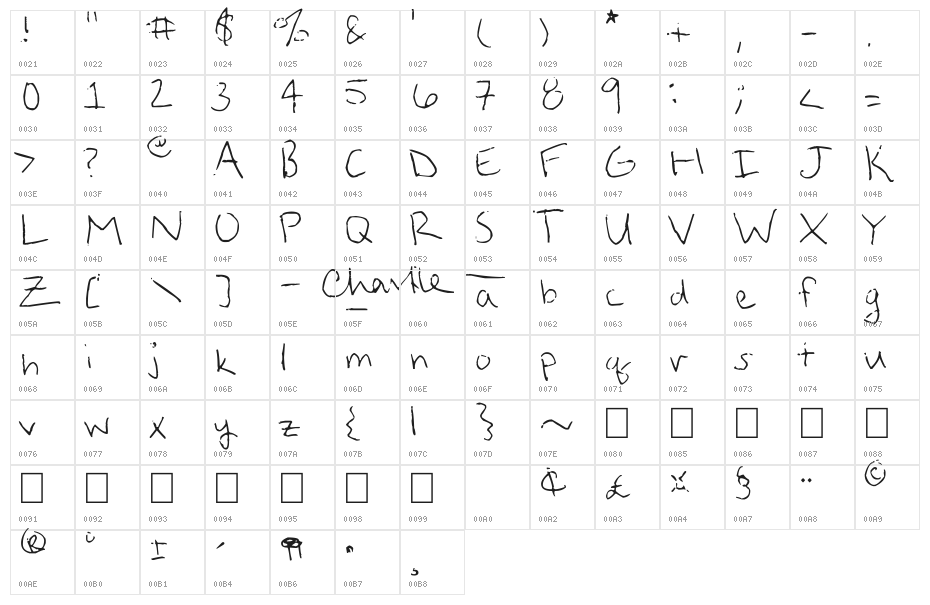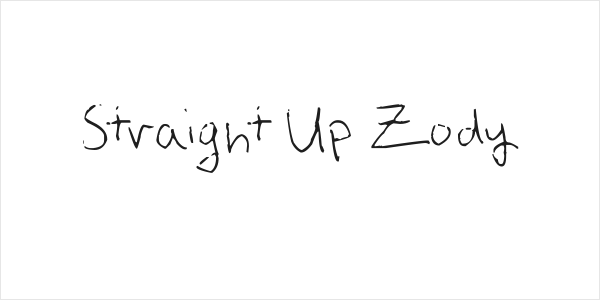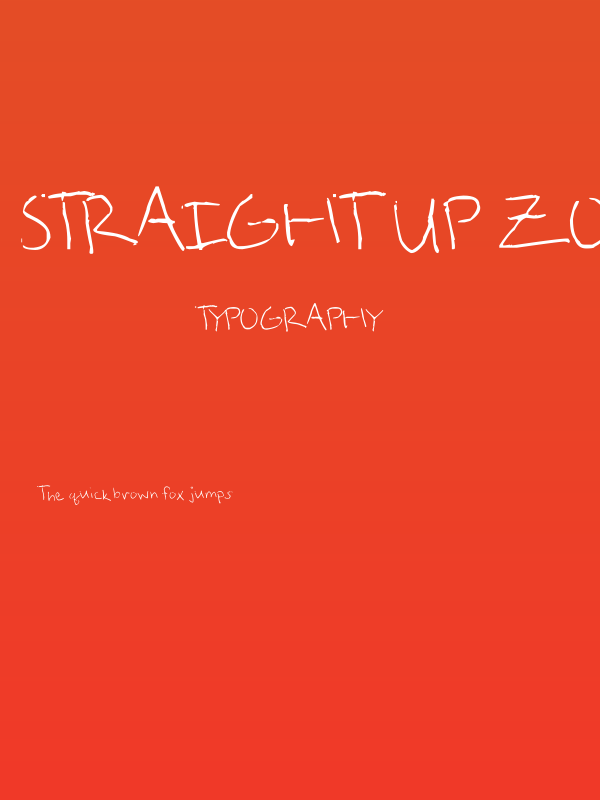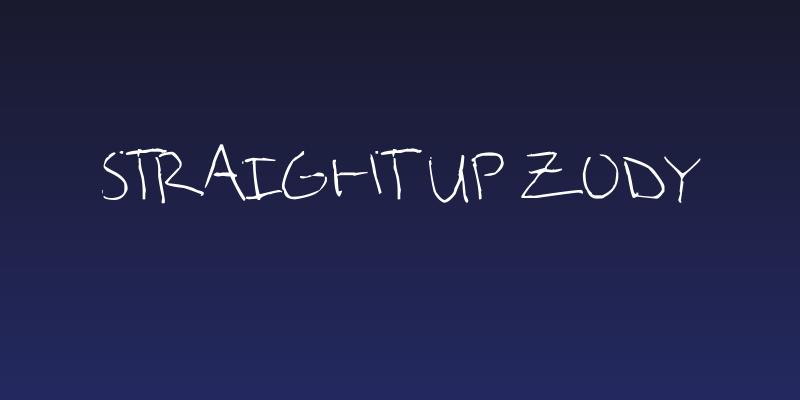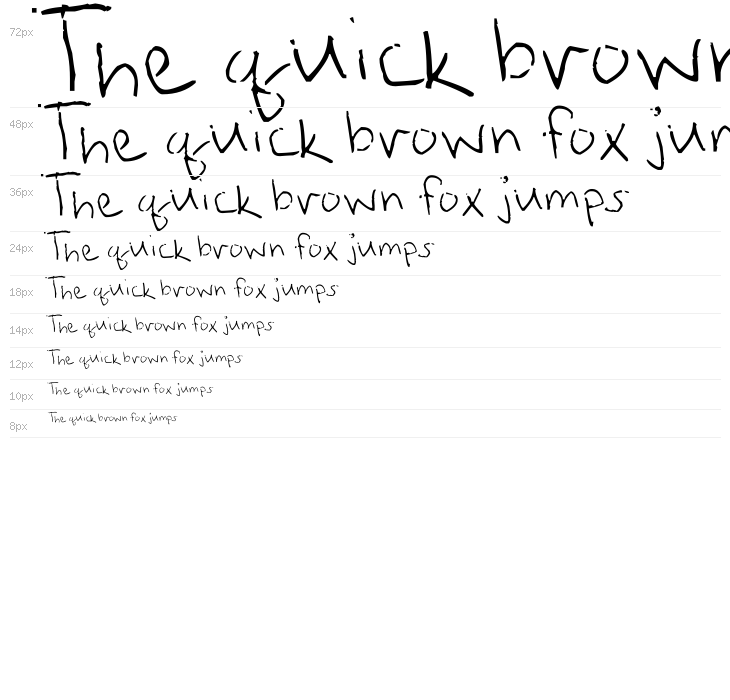
Straight Up Zody Font
Straight Up Zody Description
This font exudes a playful and casual handwritten style, characterized by its irregular strokes and slightly uneven baseline. The letters have a spontaneous and organic feel, with varying thickness that adds a dynamic touch. The uppercase and lowercase letters maintain a consistent style, while the numerals and special characters complement the overall aesthetic. The font's informal nature makes it suitable for projects that require a personal and approachable look, such as greeting cards, invitations, or creative branding materials.
| Proposed Projects | Ideal for greeting cards, invitations, creative branding, and personal projects. |